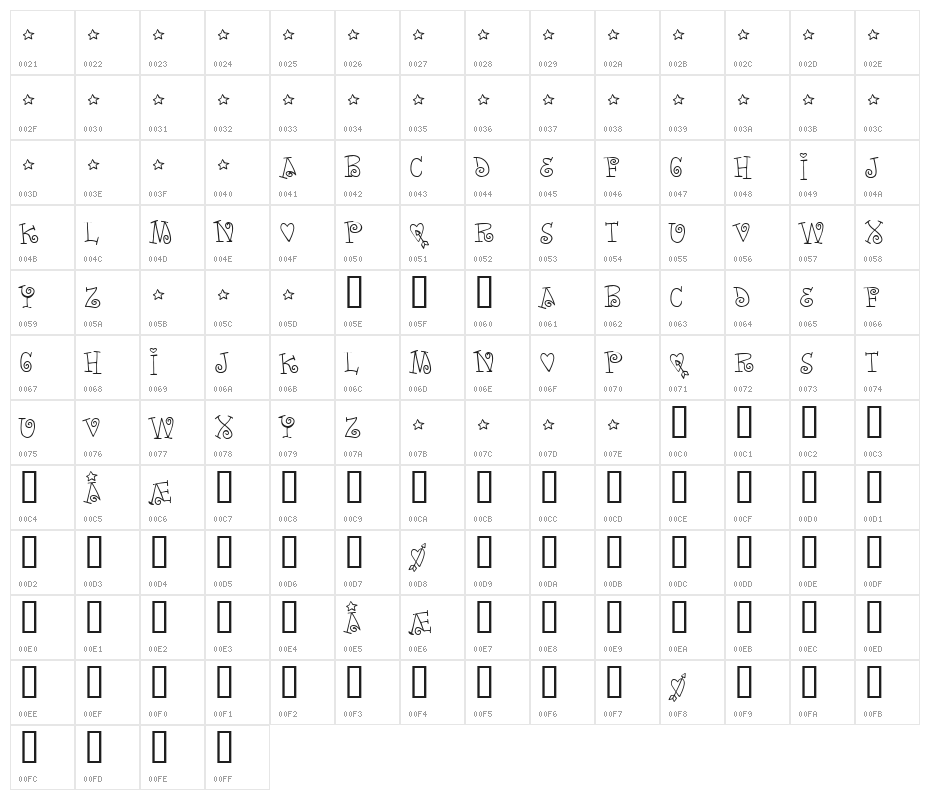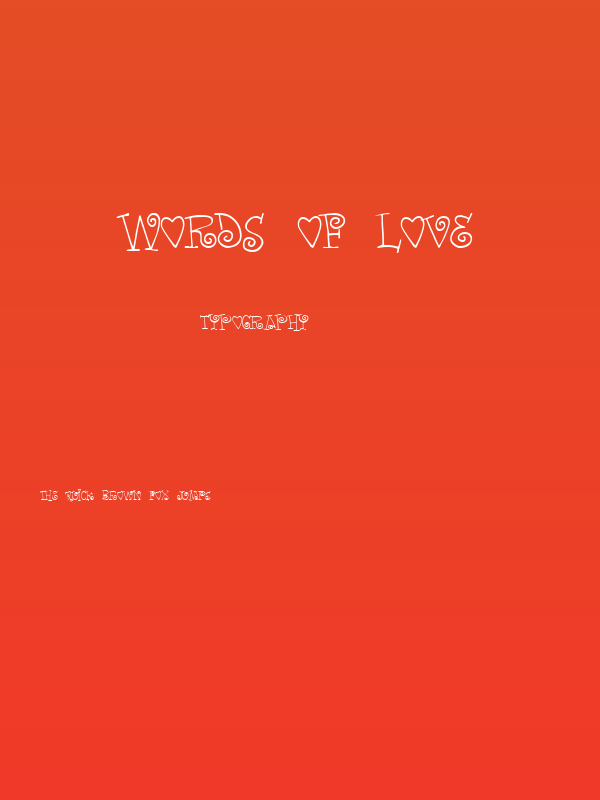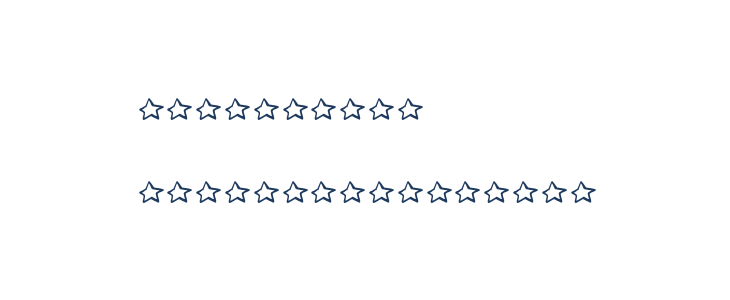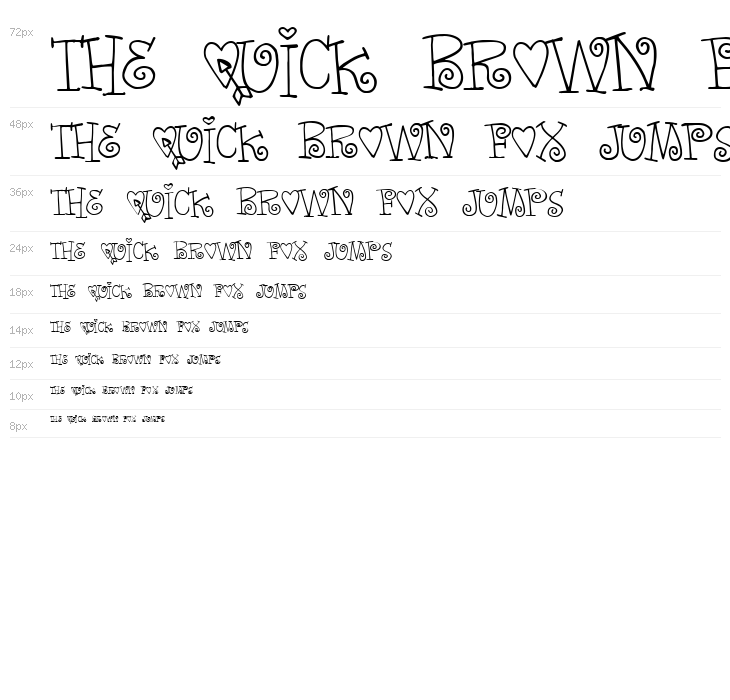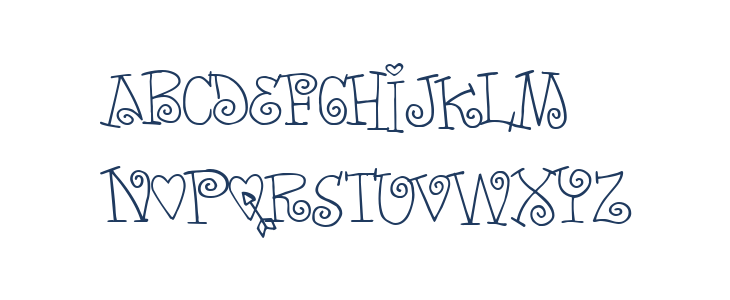
Words of love Font
Words of love Description
This whimsical and playful font features a unique blend of decorative elements, with each letter incorporating heart motifs and swirls. The uppercase letters are bold and eye-catching, with exaggerated curves and playful embellishments that give a sense of fun and creativity. The lowercase letters maintain the same decorative style, ensuring consistency throughout. The font's distinct personality makes it ideal for projects that require a touch of romance or whimsy. The characters are evenly spaced, providing a balanced and harmonious appearance.
| Proposed Projects | Ideal for wedding invitations, Valentine's Day cards, playful branding, and children's book covers. |